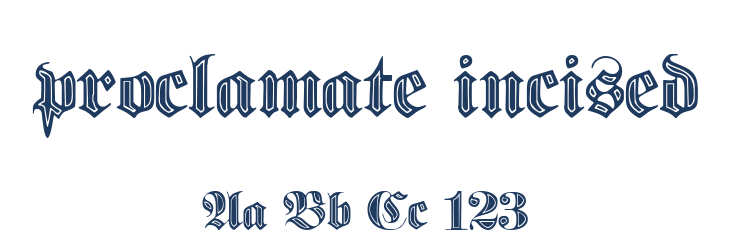
Proclamate Heavy Heavy Font
Font by Paul Lloyd
A bold, intricate blackletter font with ornate and dramatic letterforms.
Proclamate Light Light Font
Font by Paul Lloyd
A classic blackletter font with ornate and dramatic letterforms.
Proclamate Incised Heavy Font
Font by Paul Lloyd
A bold, blackletter-style font with intricate details and a historical flair.
Proclamate Embossed Heavy Font
Font by Paul Lloyd
A bold, embossed blackletter-style font with intricate details.
Proclamate Ribbon Heavy Font
Font by Paul Lloyd
A bold, decorative blackletter-inspired font with a three-dimensional ribbon effect.
Proclamate Outline Heavy Font
Font by Paul Lloyd
A bold, outlined blackletter-inspired font with ornate details.
proclamate incised Font